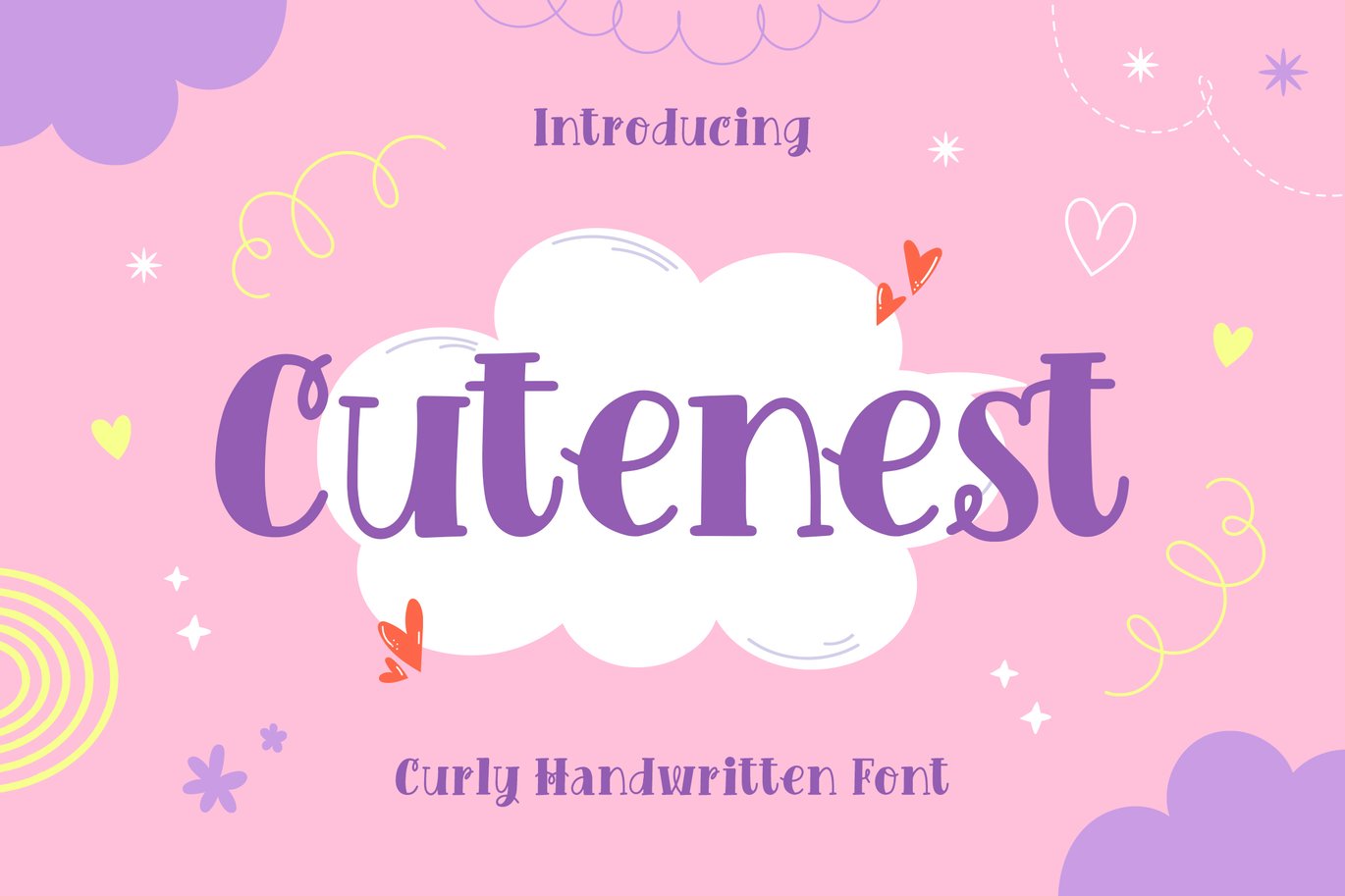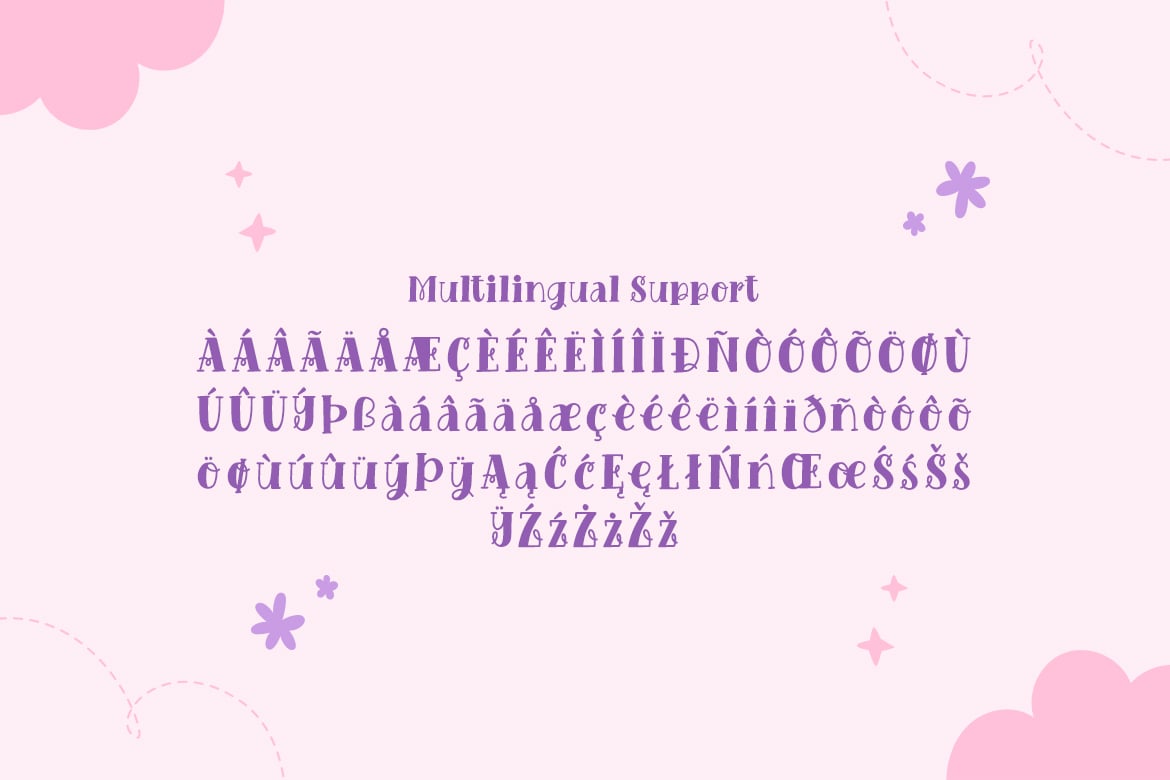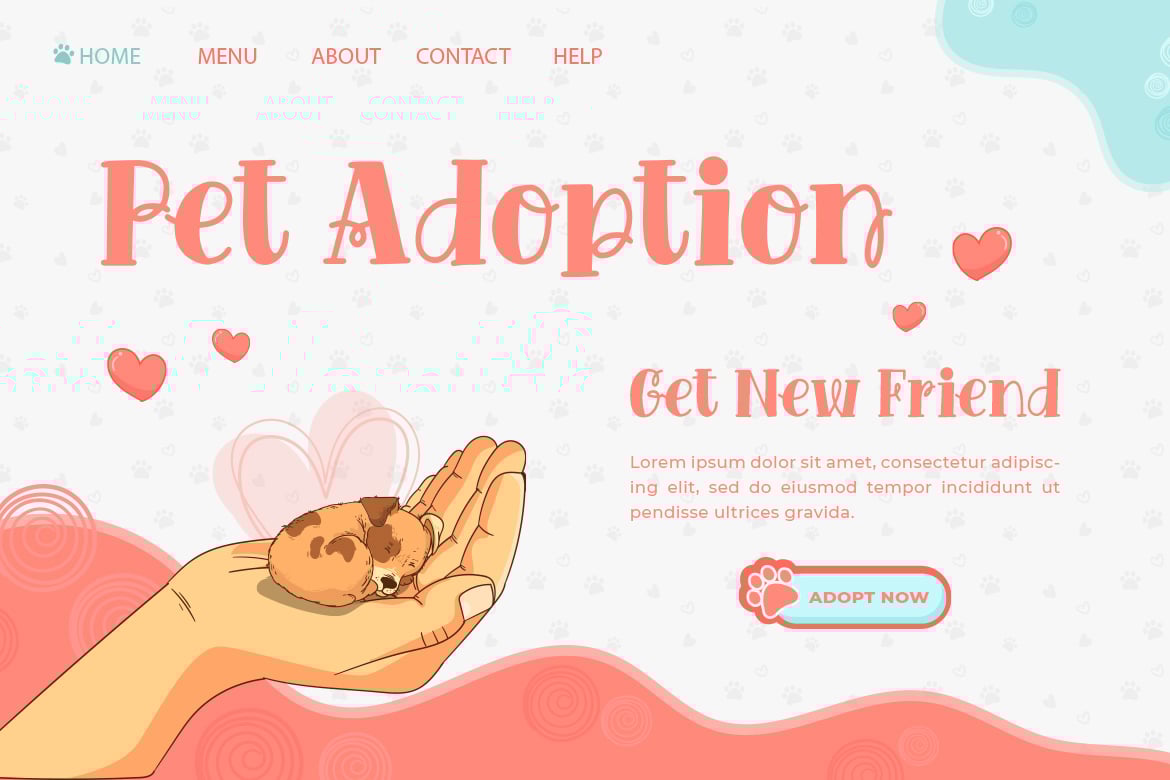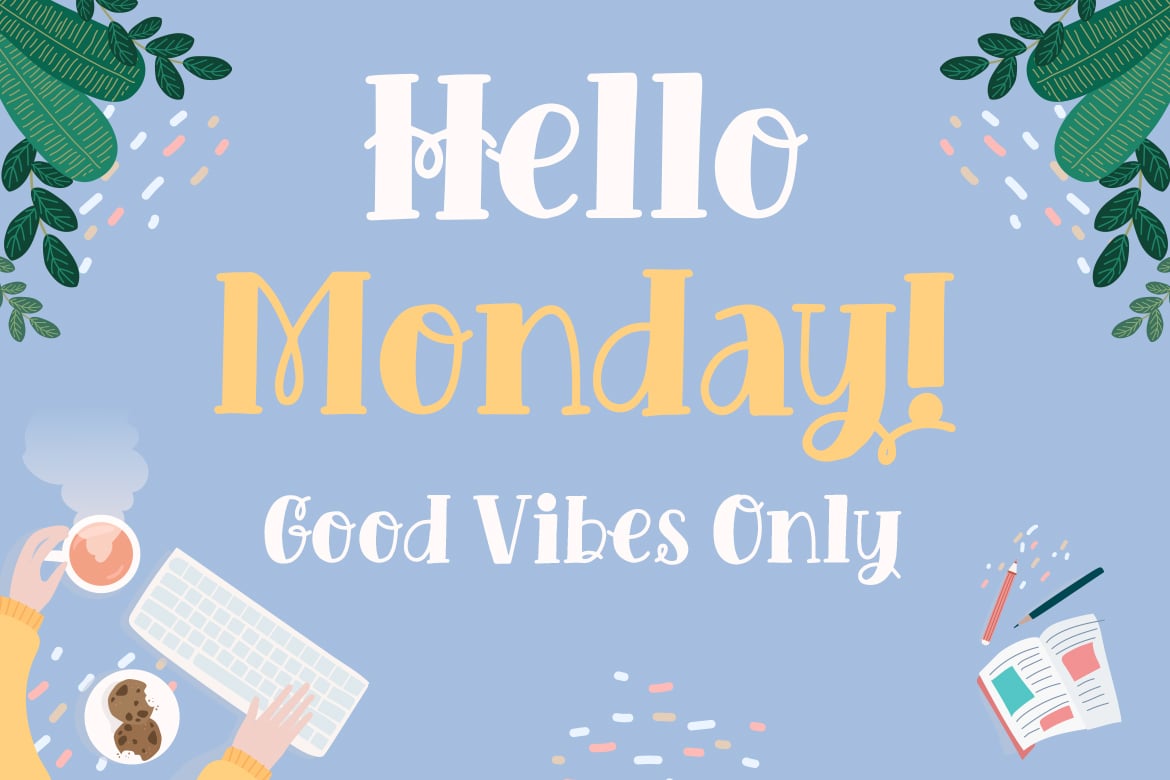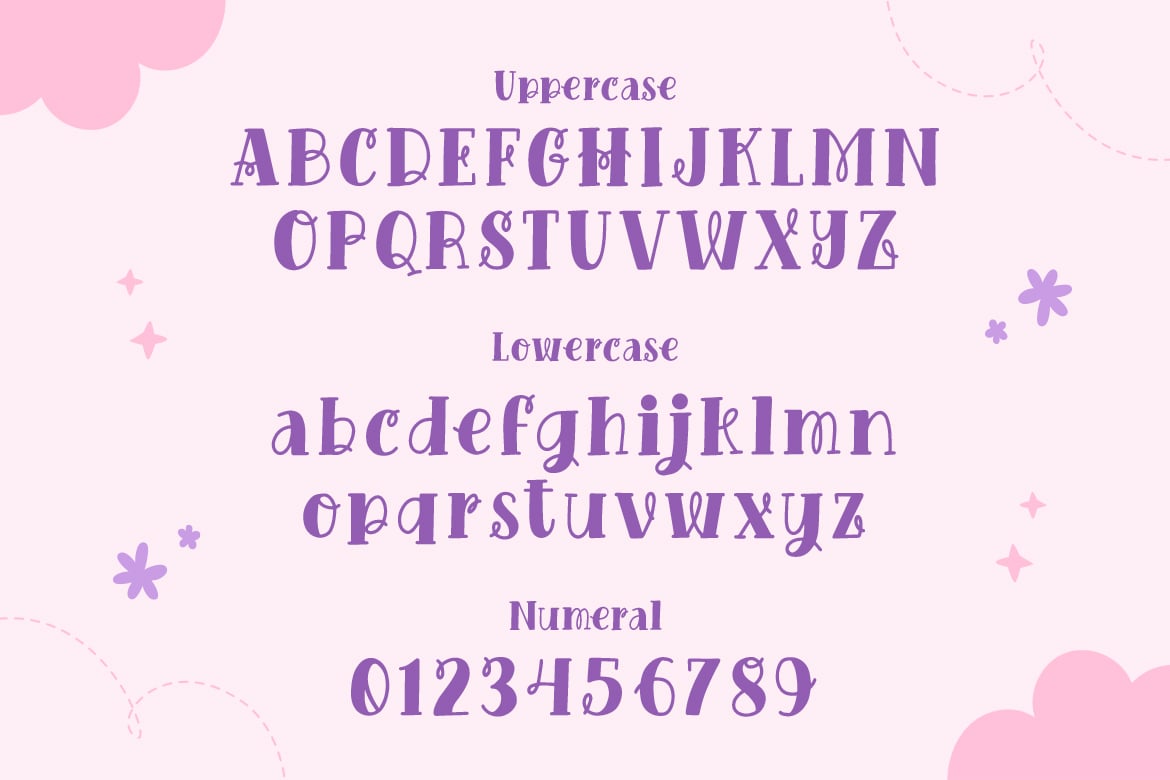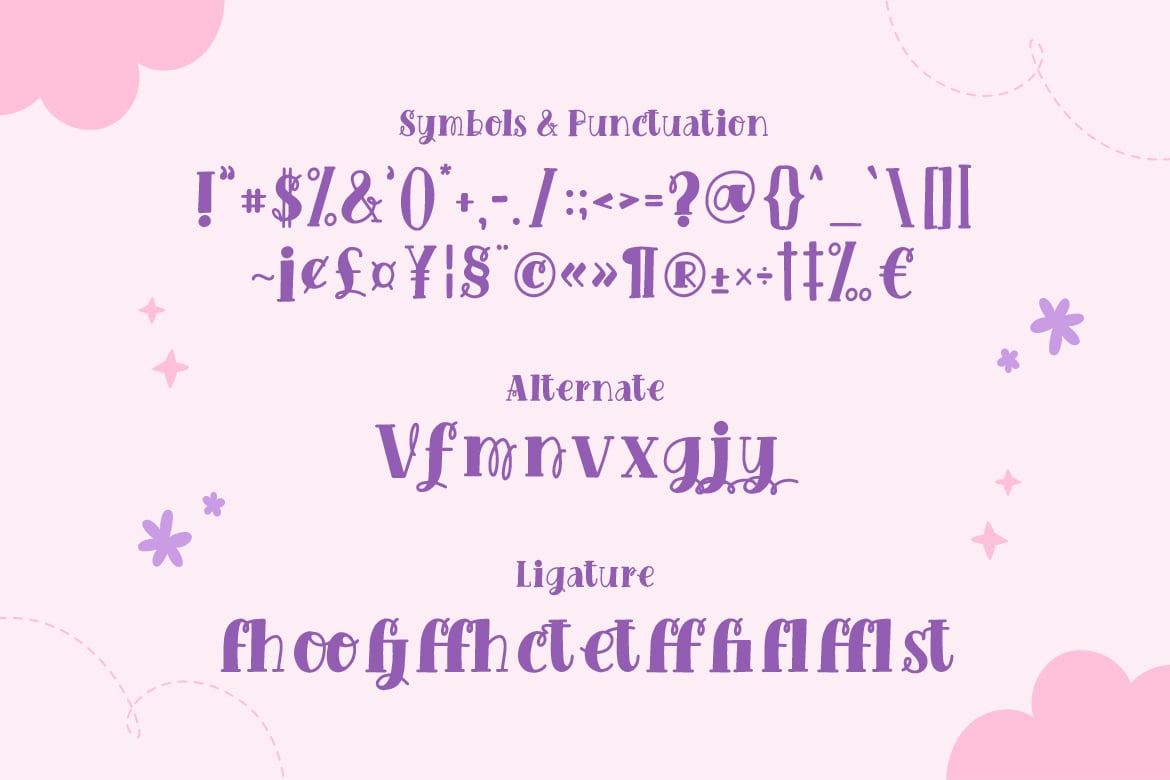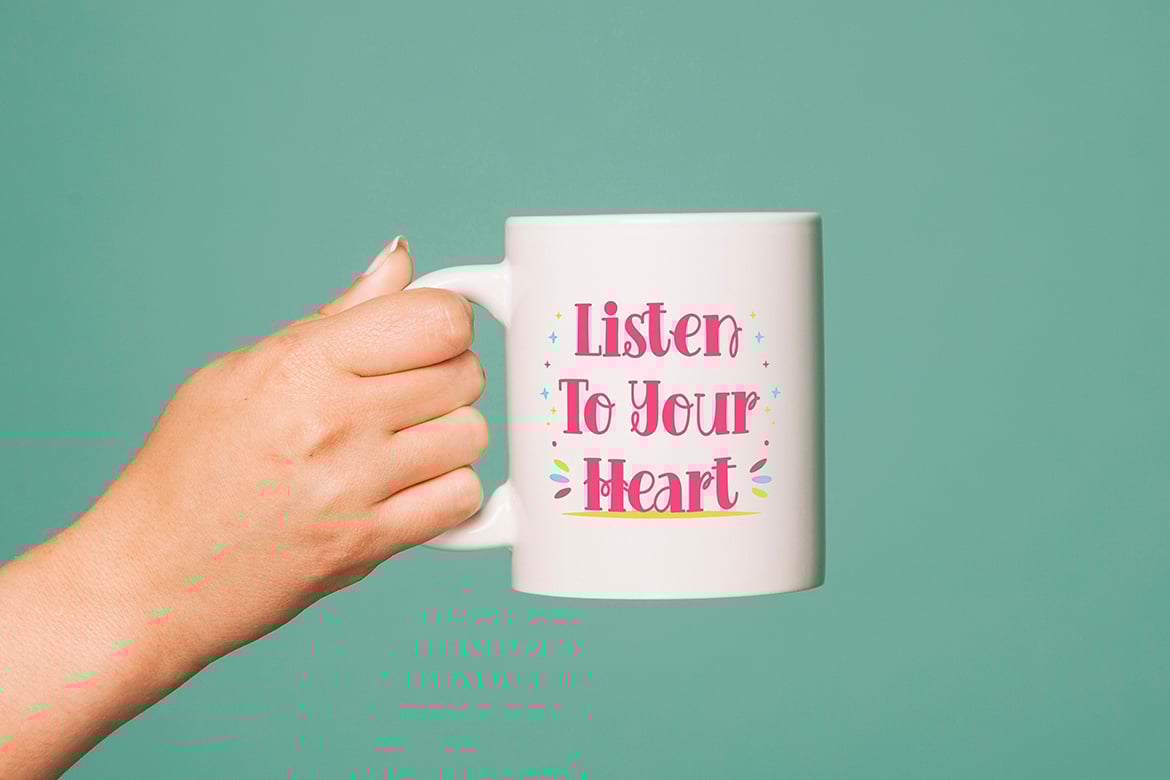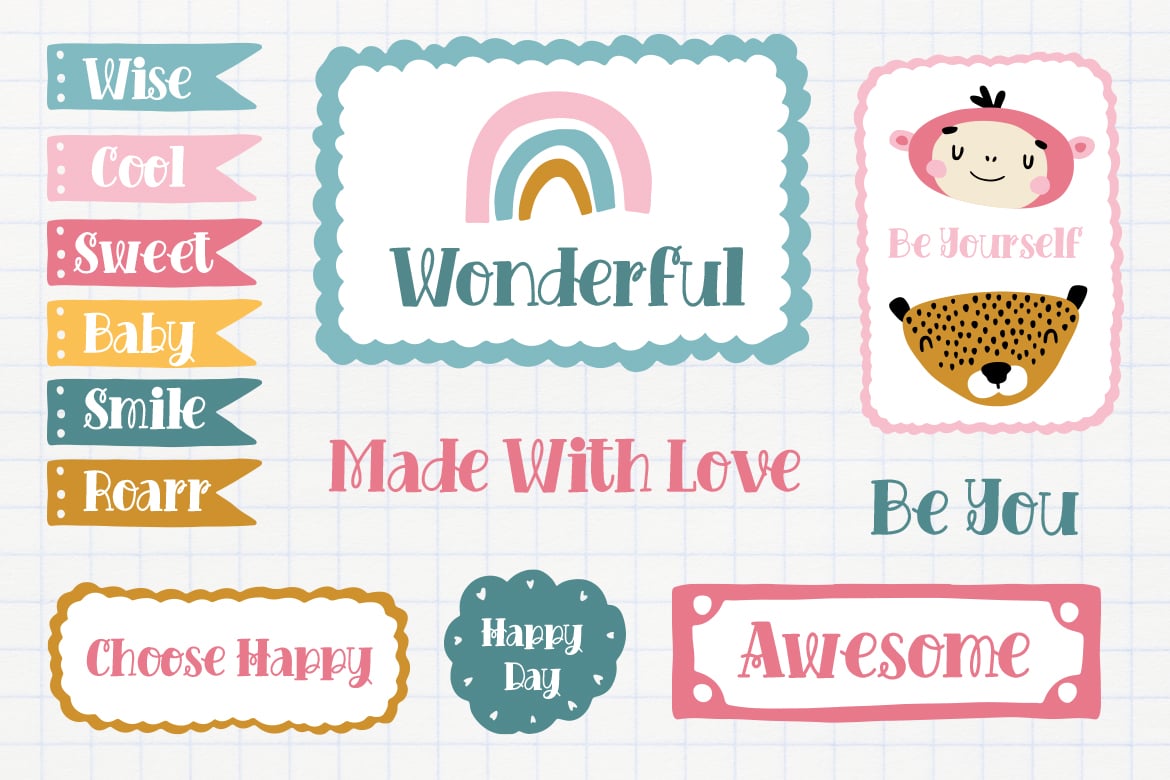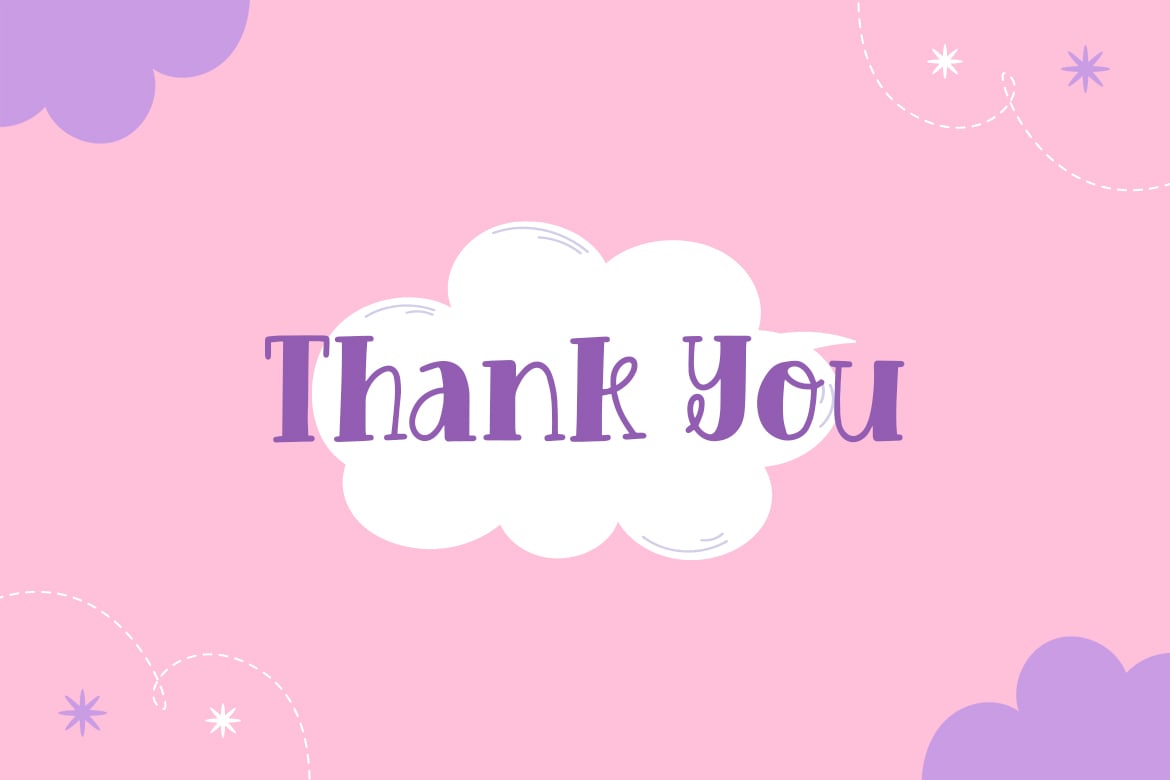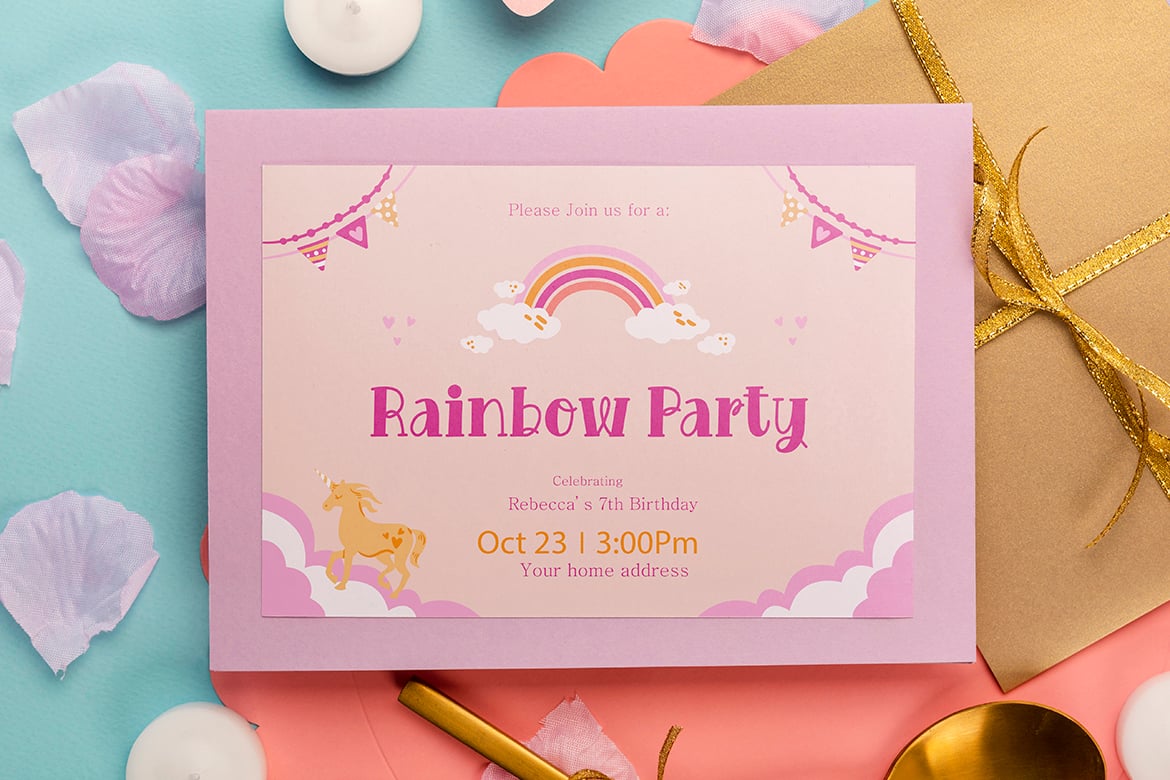
Cutenest – Curly Handwritten Font
Cutenest is a handwritten font created with the aim to be happy.
These curly and beautiful characters give the impression of joy and happiness.
Cutenest is very suitable to be applied in various design forms such as invitations, book covers, birthdays, valentine’s day, new year, and every other design that needs an happy and joyful feel.